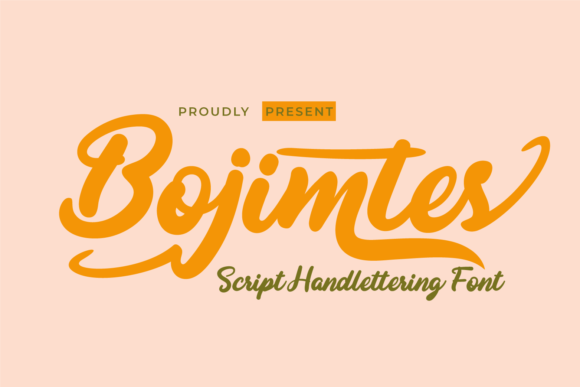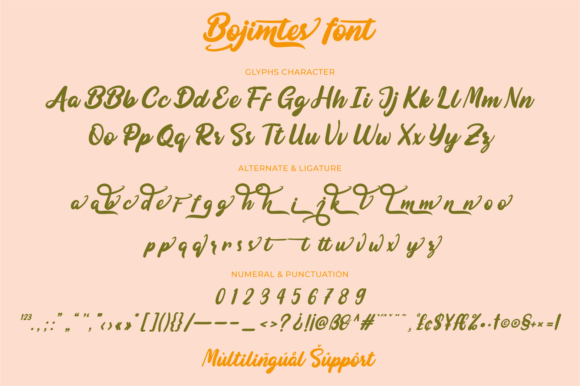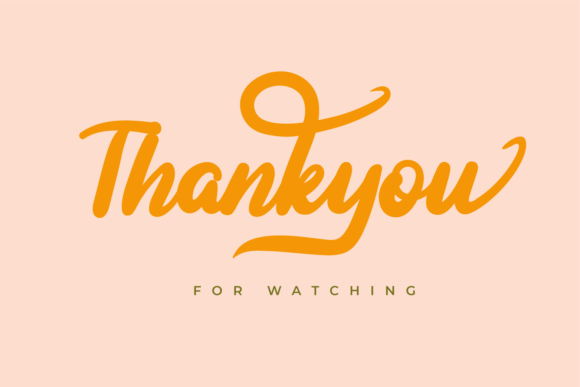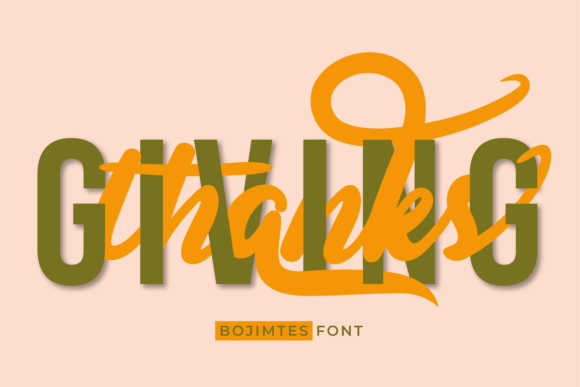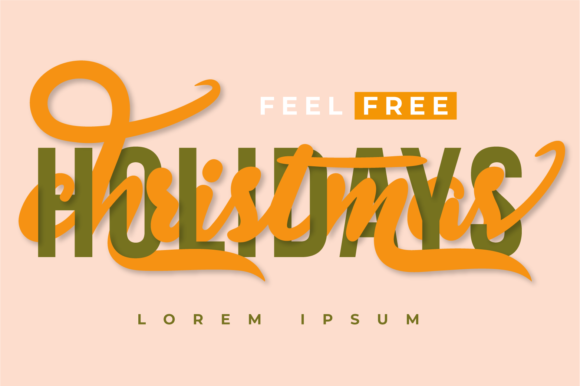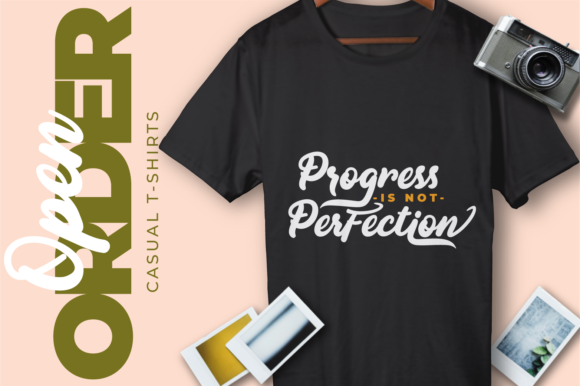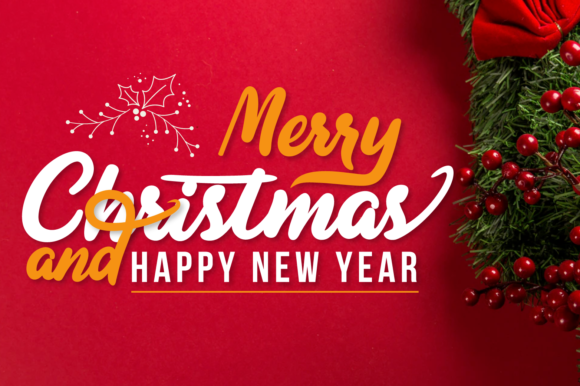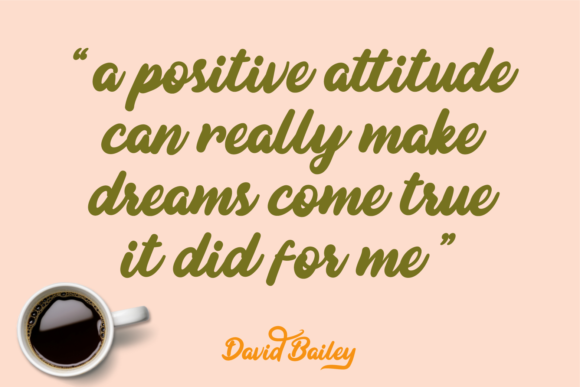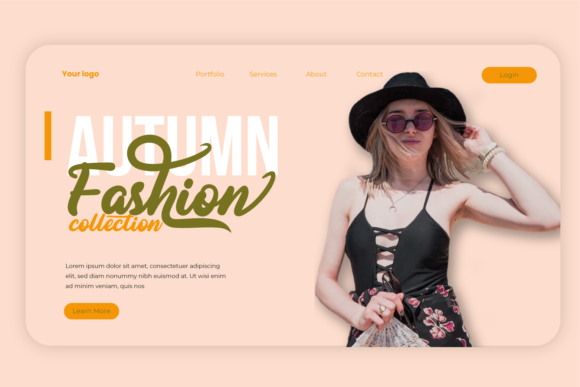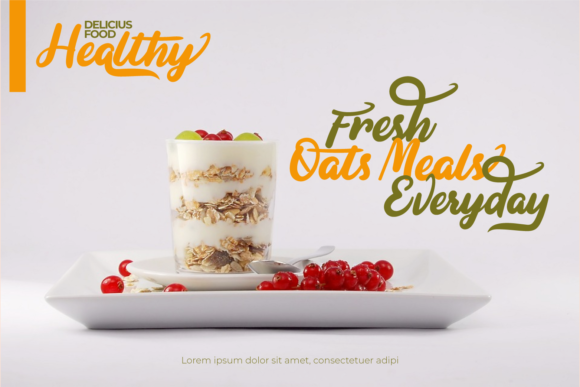
Bojimtes Font
About Bojimtes Font
Bojimtes is a beautiful and bold handwritten font. It can be used for various purposes such as logos, wedding invitations, headings, t-shirts, letterhead, signage, labels, news, posters, badges and so much more.